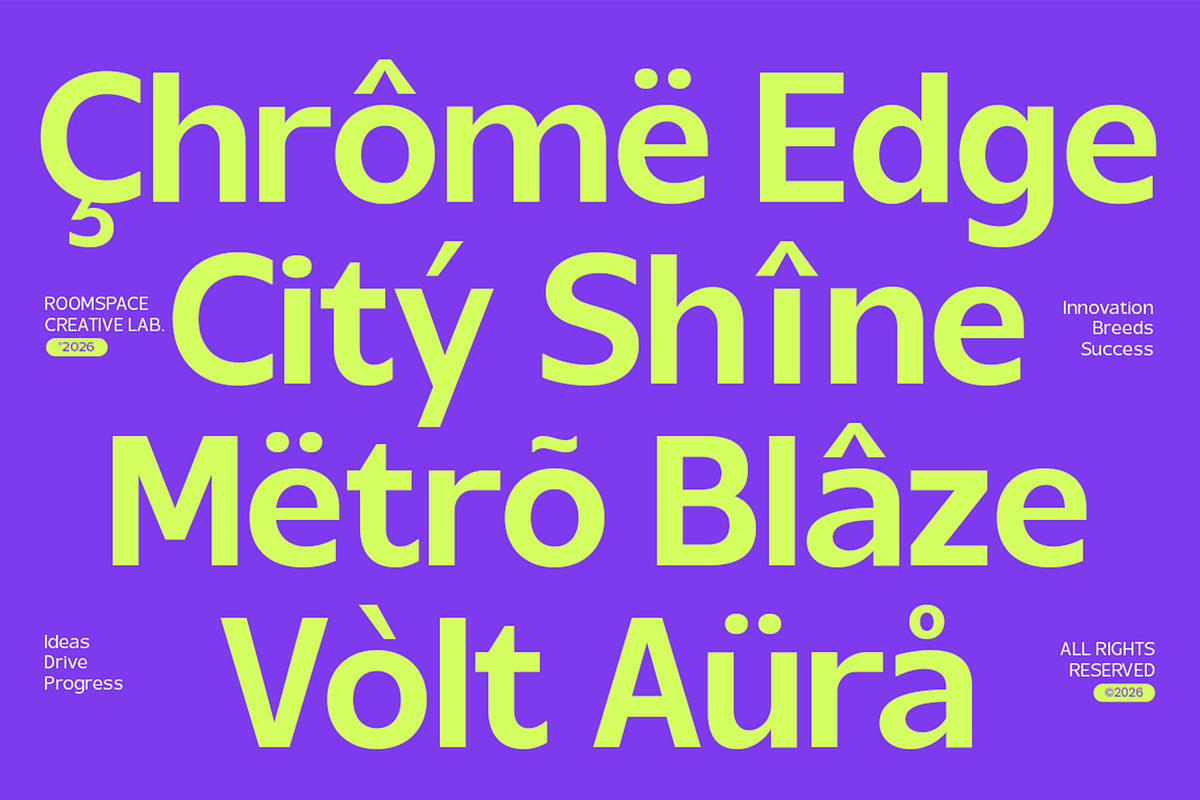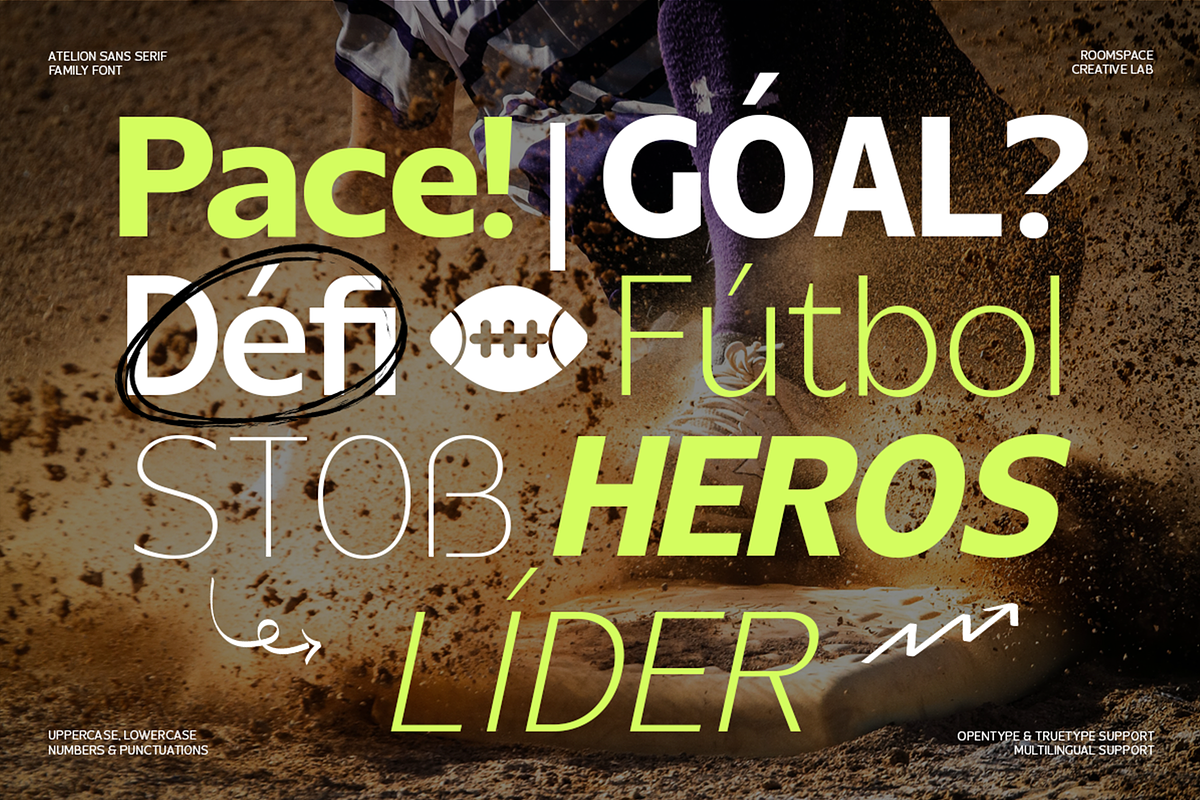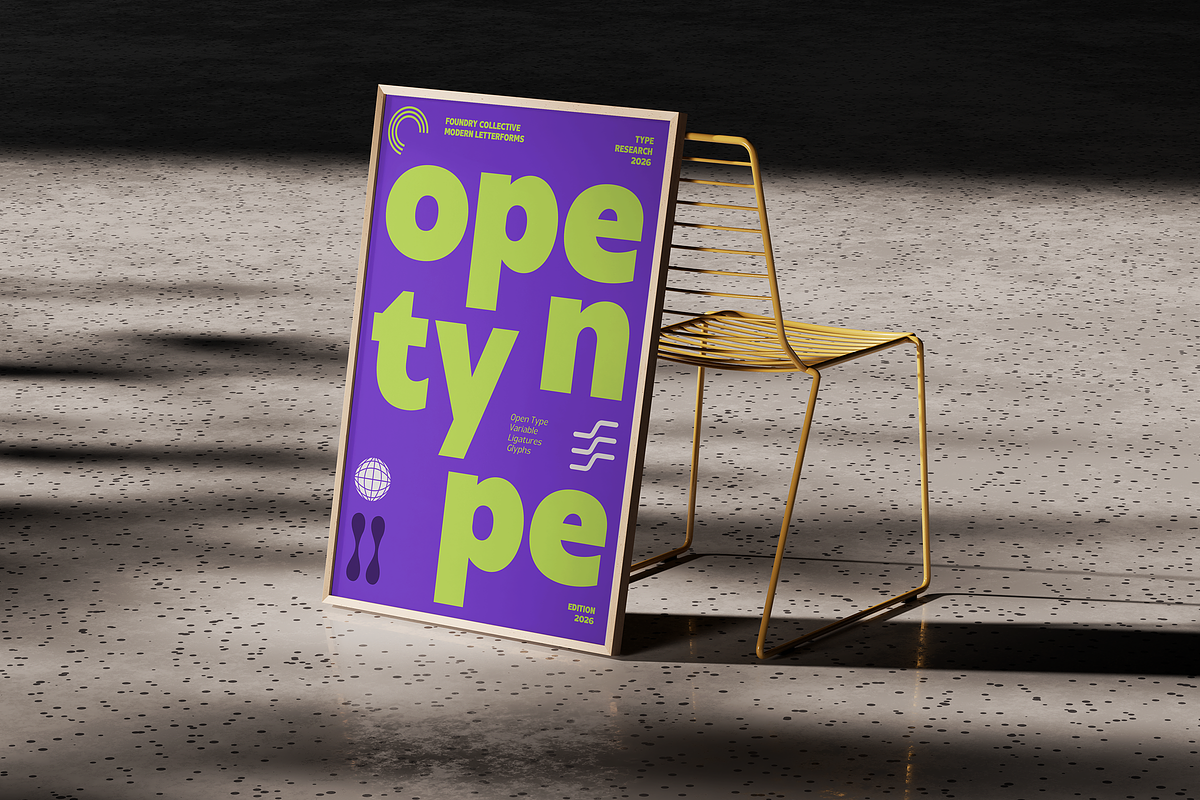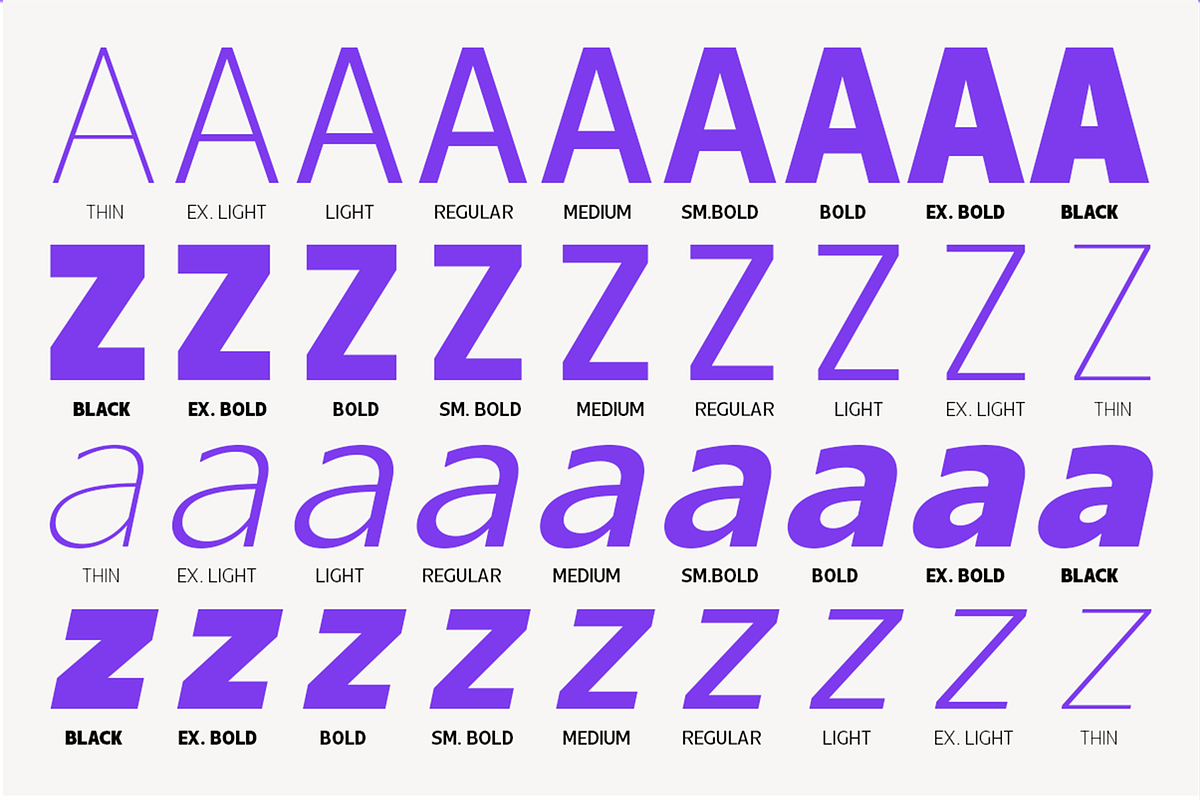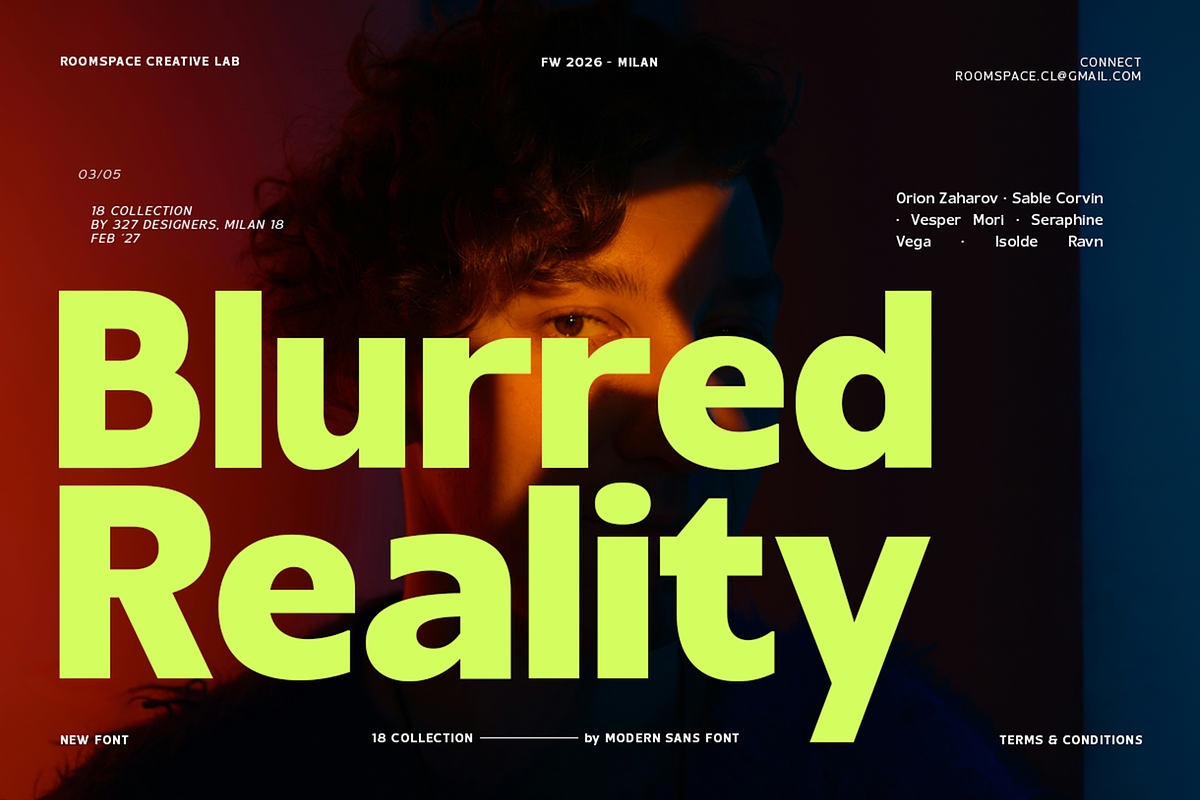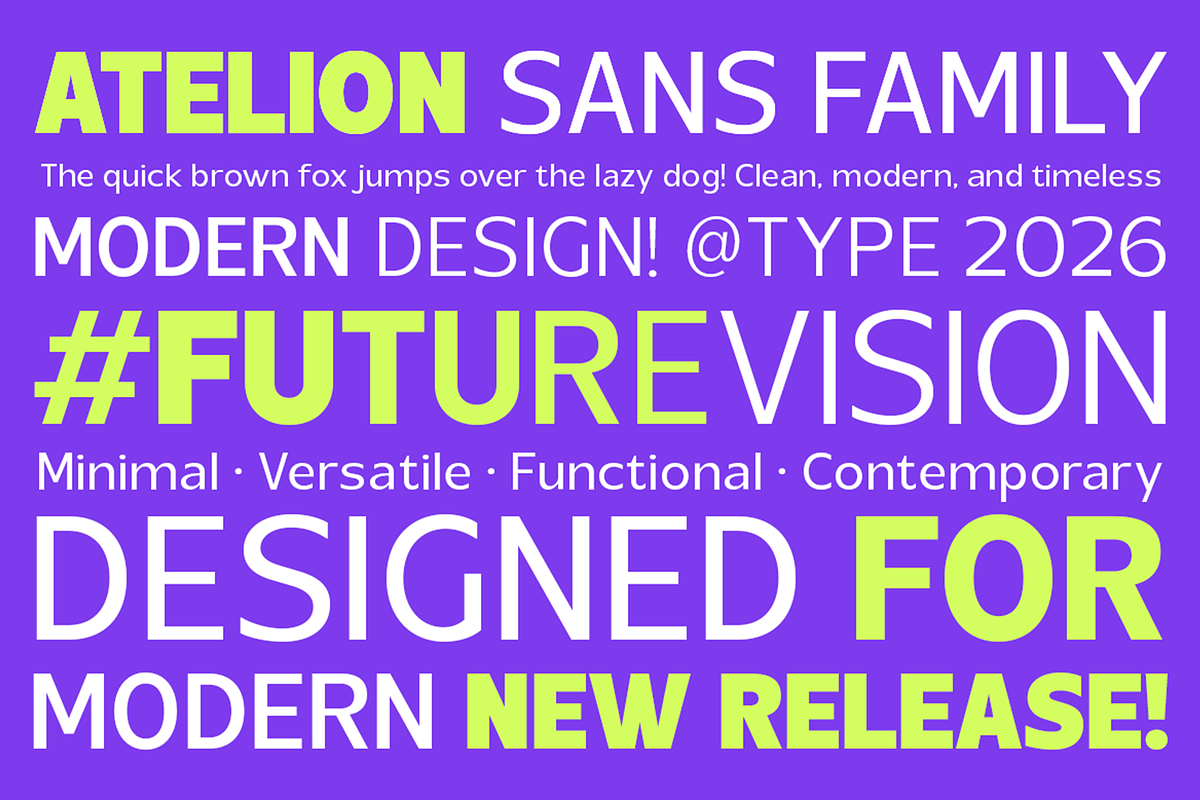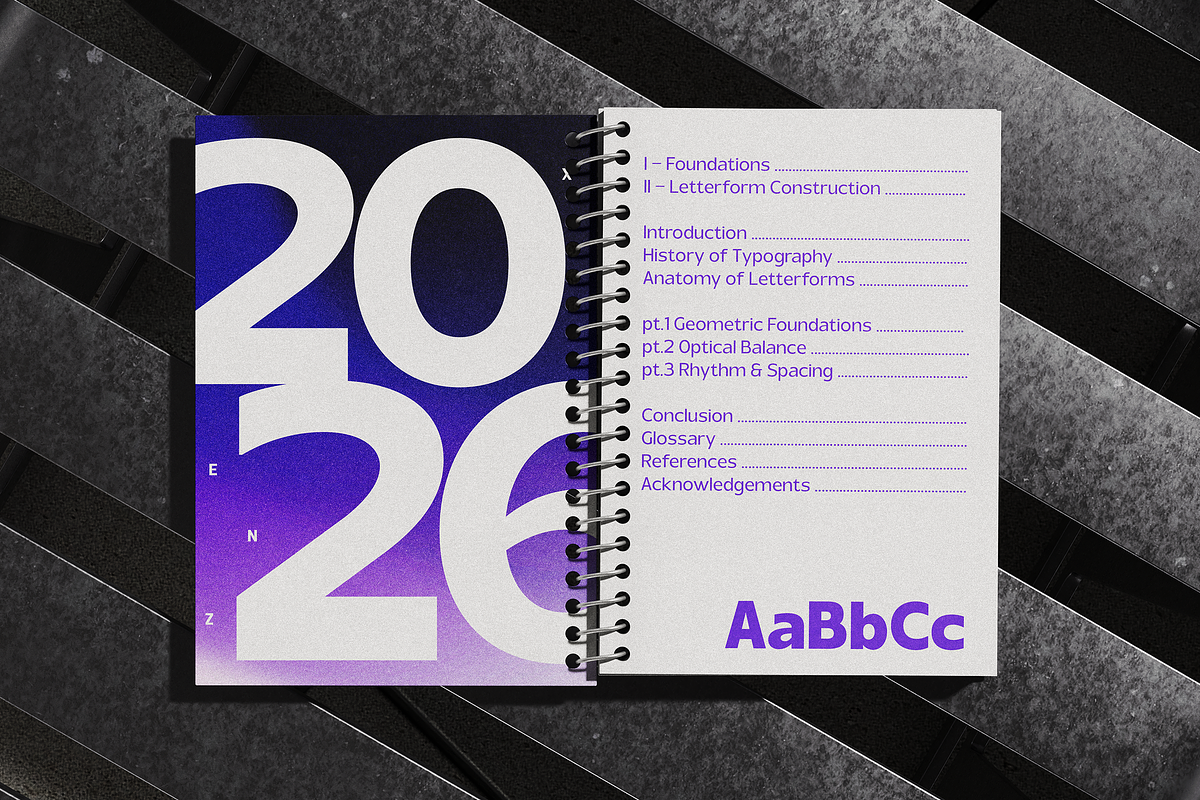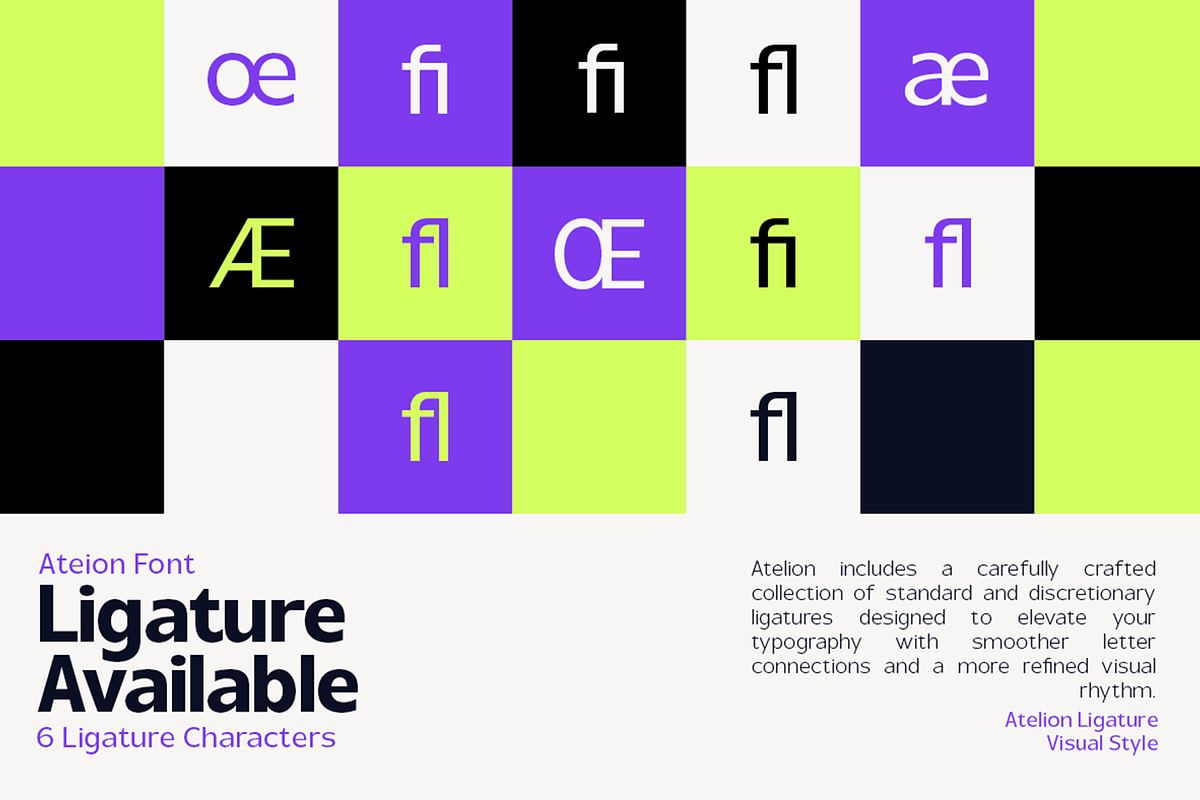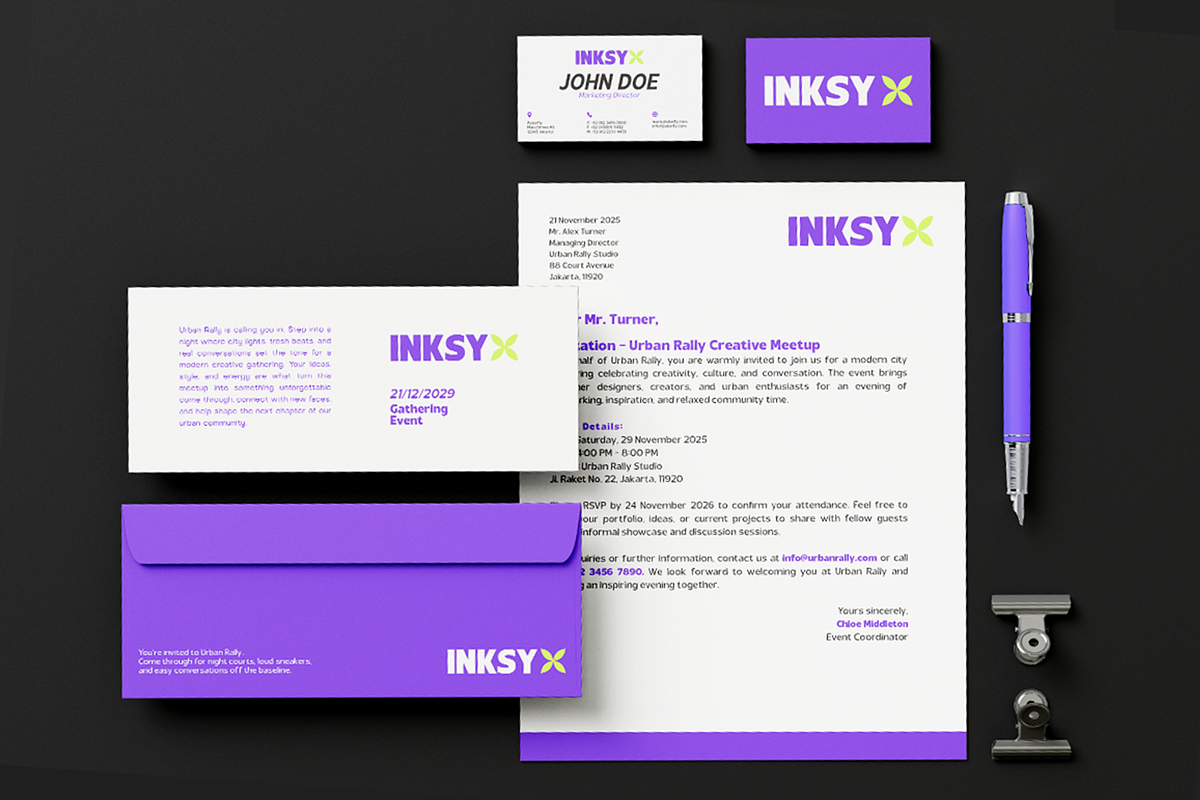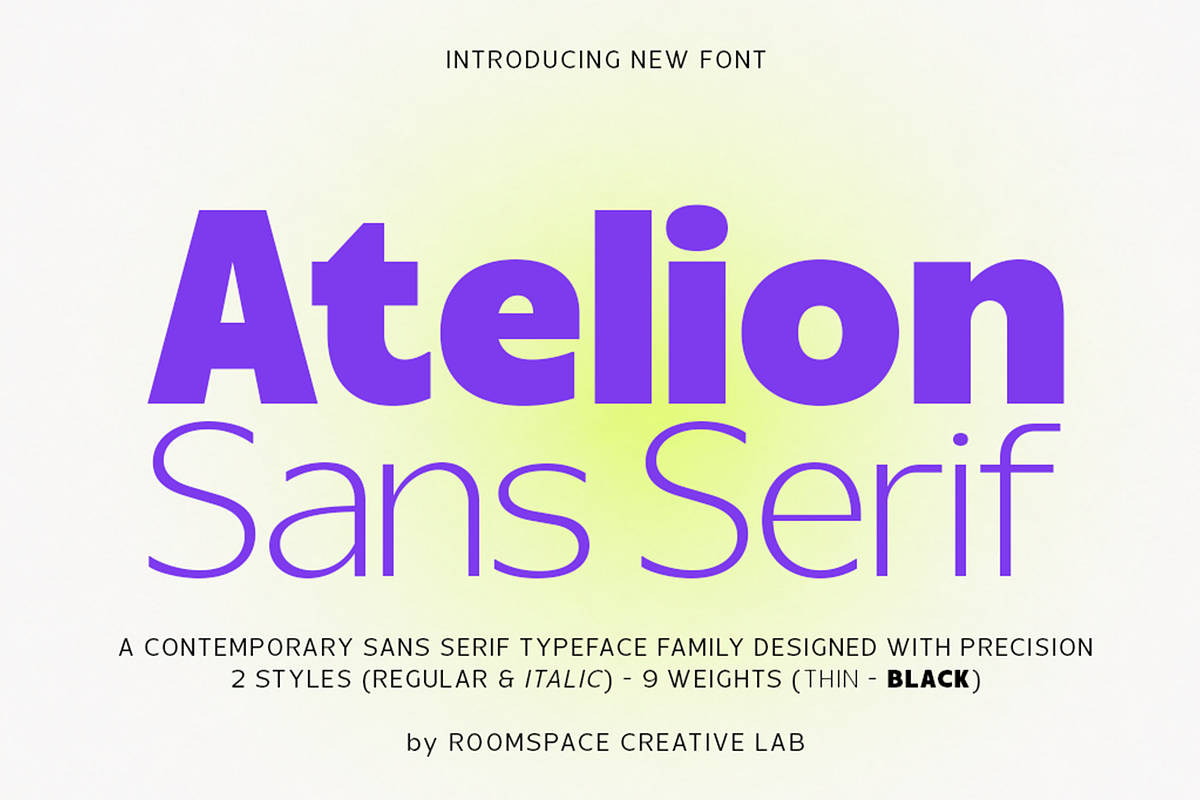
Atelion Modern Geometric Sans Serif
Atelion is a modern geometric sans-serif font family designed with clean proportions, refined letterforms, and a versatile contemporary character. Its balanced construction combines a precise geometric foundation with approachable forms, making it suitable for both expressive display typography and structured visual communication.
The family includes 9 weights, ranging from Thin, ExtraLight, Light, Regular, Medium, SemiBold, Bold, ExtraBold, to Black, with matching Italic styles. This wide range of weights allows designers to create strong typographic hierarchy, from delicate editorial compositions and elegant supporting text to bold headlines and impactful display graphics.
Atelion is designed for a wide range of creative applications, including branding, logo design, editorial design, magazine layouts, posters, advertising, packaging, fashion graphics, digital interfaces, websites, technology projects, presentations, signage, and social media visuals. Its clean and legible forms make it flexible enough for contemporary identity systems, while its heavier weights provide a strong presence for headlines and display compositions.
The family also includes 6 carefully crafted ligatures that add additional typographic character and visual variation. Multilingual support enhances usability across international design projects, while OpenType and TrueType formats ensure compatibility with a wide range of professional design applications.
9 Weights
Regular & Italic
Lowercase
6 Ligatures
OpenType Features